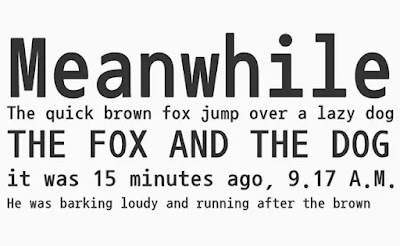
Top 10 Gothic Fonts Families
The Gothic Fonts are much the same as Gothic engineering and are most appropriate for vintage or retro plans. Numerous words can be utilized to depict gothic text styles: peculiar, secretive, grunge, creative, blackletter, and others. Despite the portrayal, gothic text styles assuredly add character to your plans. They can cause your plan to seem bolder or spookier in case you're taking a shot at a Halloween-themed structure.
Almendra Font Family
Almendra Font is a presentation textual style that is mainstream on account of its special surfaces. Ana Sanfelippo an incredible text style creator took the charge for planning and discharging it.
He has shown this exquisite text style at the Bienal Iberoamericana de Diseo in 2010. Furthermore, make it the piece of the German article venture Typodarium in 2012.
As per the originator, it has completely dependent on calligraphy style that identifies with the chancery and gothic hands. That makes it one of a kind from the others.
This amazing text style creates a decent surface in little sizes, while its numerous subtleties show up when its utilization for long content sections. Along these lines, it can without much of a stretch be utilized for printing and show purposes.
Apercu Font Family
Apercu Font is an abnormal sans-serif textual style discharged by a UK-based text style foundry The Entente. Also, it was made by Mr Colophon without precedent for 2010.
As a matter of first importance, he has taken motivation from some mainstream and incredible typeface. What's more, as indicated by his announcement, that typeface has the amalgamation of ITC Johnston, Gill Sans, Neuzeit, and Franklin Gothic.
Hence, Due to its full character set and peculiarity, it is effectively discernable from other fundamental textual style families out there. Likewise, it can without much of a stretch perceive by any fashioner who has some information about textual styles.
Different creators from various fields utilizing it as it additionally incorporates manual suggesting unusualness to promise it can render forcefully, and unmistakably.
Reggae Font Family
Reggae Font is a comic manually written textual style that highlighting the special look which attracts everybody to himself. A Muslim textual style planner Mr Aslam Adigun has made it just because and discharges it.
The most conspicuous element of this written by hand text style is its sharp edges. In which some are arranged from option to left and some are from left to right.
It's not been quite a while since it's discharged however the utilization of that typeface in the market is expanding step by step. So you simply begin utilizing it and make top notch plans.
This can assist you with increasing your interest in business sectors. Furthermore, it will likewise assist you with making preferable structures over others. Since we are completely trusted over its component.
Different originators from various fields utilizing it as it likewise incorporates manual suggesting unpredictability to promise it can render strongly, and plainly.
Nanum Gothic Font Family
Nanum Gothic Font is a contemporary sans serif textual style that looks so spotless while utilizing it into any errands. Just because, it was structured by Sandoll Communications.
Also, it discharges it by means of Naver in 2018. It is motivated from the Korean-language content "Hangeul". In this manner, that typeface has bolstered the Korean language just as Latin moreover.
The creator's group has included a one of a kind warm touch that makes it expertly indicated for screen use. Because of this capacity, it is utilized for pretty much every sort of planning field.
You sincerely see the textual style surfaces in pictures then you will get more data appropriately. From that point onward, you can choose, how you can pull out all the stops.
SpaceX Font Family
The textual style has been utilizing for the logo of SpaceX is a hand craft text style. Be that as it may, the most comparative typeface to this logo is Bank Gothic Font. By Morris Fuller Benton from American Type Founders.
Needs a couple of changes on the off chance that you like to make it look equivalent to the SpaceX logo. Simply give a little hole in the upper bit of the letter "E" and "A"
Here you can see the text style lettering pictures for this rich textual style. Some sharp originator do these sorts of steps to give a logo a fine extraordinary appearance.
The fashioner for SpaceX logo has done as same. In the pictures, we secure in here you will feature you a thought of how this textual style family really resemble.
Aesthetic Font Family
Aesthetic Font is a vintage gothic typeface. Figuree Studio took the charge for planning and discharging it just because. It accompanies sharp highlights and tremendous dialects support. Perfect for each feature or title show structure activities.
As you can see in the character map pictures we attach in here. This rich textual style includes high-grade readability even in the huge presentation also. Numerous planners are looking for this typeface and others are utilizing it.